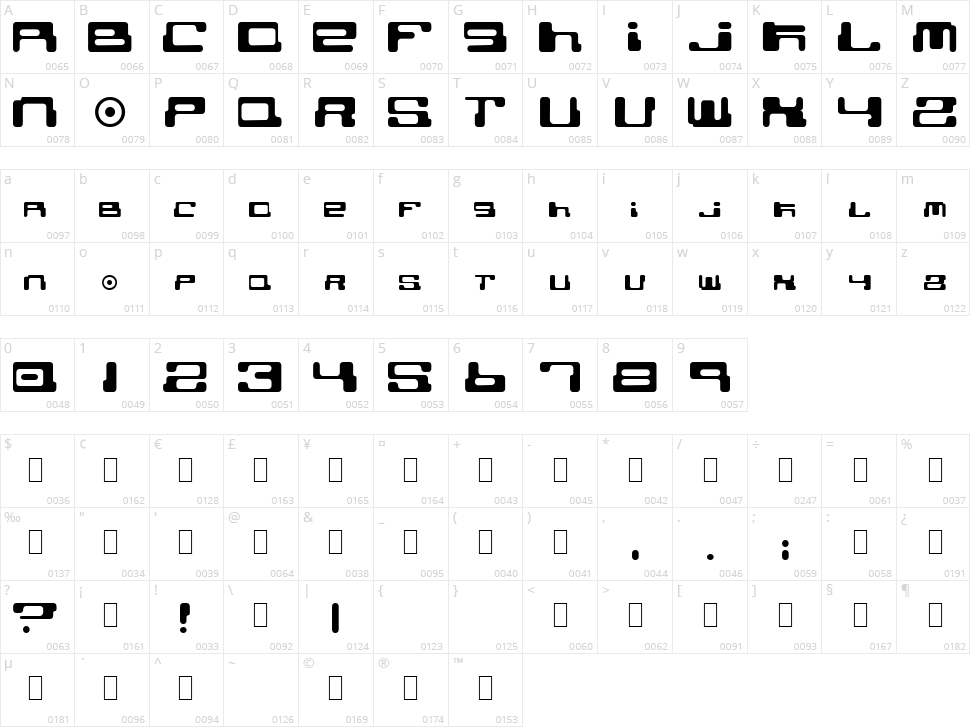
Cybertown Subterranean
Cybertown Subterranean by Matt Perkins.
Wide tenchy looking moster thing. Use it well, my son.
A Typography in Decay production in 1997.
Designer Name: Matt Perkins